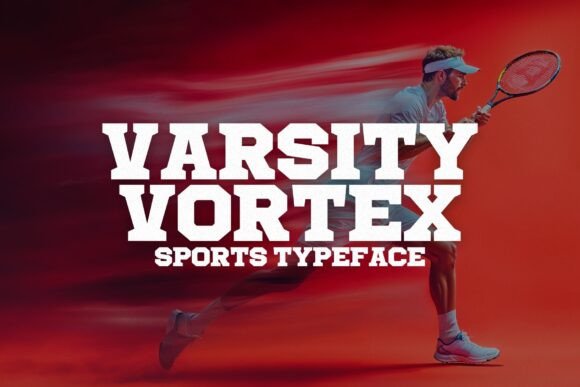
Varsity Vortex Font: Bold Slab Serif for Athletic Web Design
Testing Varsity Vortex in High-Impact Hero Sections
When I first loaded Varsity Vortex into my design software for a new fitness coaching landing page, I was immediately struck by how this specific slab serif commands attention without feeling outdated. Unleash the full force of athletic energy with Varsity Vortex, a bold and commanding sports typeface built for champions, and you will quickly see why it works so well above the fold. In my recent project for a boutique strength training studio, the client needed a digital presence that felt as intense and disciplined as their in-person sessions. Standard sans serif fonts felt too corporate, and traditional serifs lacked the necessary grit. Designed for impact, this powerhouse font exudes strength, determination, and an undeniable sense of motion that translated perfectly to the hero section.
I placed the headline "Train With Purpose" in Varsity Vortex against a dark, high-contrast background image. The thick, blocky serifs anchored the text, making it legible even over complex photography. As a web designer, readability is always my primary concern, but personality is what converts visitors into leads. This typeface bridges that gap effectively. It provided the visual weight necessary to stop the scroll, yet the letterforms were open enough to prevent the text from feeling muddy on smaller laptop screens. For any digital product creator building a campaign landing page or a sports brand homepage, testing this font in your primary header is the first step toward establishing a confident brand voice.
Varsity Vortex Typography for Fitness Brand Identity
Integrating Varsity Vortex into a comprehensive digital brand kit requires understanding its role as a specialized display tool within your broader typography system. When I developed the identity for an online athletic wear store, I used this font exclusively for category headers and promotional banners to maintain a cohesive athletic aesthetic. Because it is such a distinct slab serif, it pairs best when allowed to breathe. I found that using it for navigation menus or body copy created visual fatigue, but utilizing it for short, punchy phrases like "New Arrivals," "Sale Ends Soon," or "Join the Team" created a rhythmic visual hierarchy that guided users through the shopping experience.
The personality of this typeface aligns perfectly with brands that want to communicate resilience and performance. During the branding phase, I tested it alongside various color palettes. High-contrast combinations, such as white text on deep navy or neon accents on charcoal black, amplified the font’s inherent energy. Conversely, pastel backgrounds softened the aggressive edge, making it suitable for youth sports leagues or community fitness programs. For UI designers working on digital assets, remember that this font carries significant cultural baggage associated with varsity jackets and stadium signage. Lean into that nostalgia if it serves the brand, or subvert it with modern layout techniques to create something fresh. The key is consistency; once you establish Varsity Vortex as your primary display face, use it deliberately across social media graphics, email headers, and web banners to reinforce recognition.
Pairing Varsity Vortex with Clean Sans Serif Fonts
A successful web layout relies heavily on contrast, and pairing Varsity Vortex with a neutral sans serif font is essential for maintaining usability while showcasing its character. In my coaching website redesign, I coupled this bold slab serif with a geometric sans serif for all body text, captions, and interface elements. The stark difference between the decorative, heavy strokes of Varsity Vortex and the clean, uniform lines of the supporting typeface created a professional balance. This combination ensured that while the headlines screamed "athlete," the content remained accessible and easy to scan.
I also experimented with pairing it alongside a monospaced font for data-heavy sections like workout stats or pricing tables. The technical feel of the monospace complemented the structured nature of the slab serif, reinforcing a theme of precision and metrics. Avoid pairing Varsity Vortex with other display fonts or ornate scripts, as they will compete for attention and clutter the visual field. Instead, let the slab serif be the singular star of your typographic hierarchy. When selecting your secondary font, look for x-heights that harmonize with Varsity Vortex to ensure alignment feels natural in responsive grids. This thoughtful approach to font pairing transforms a simple typeface choice into a sophisticated design system that supports both aesthetics and user experience.
Optimizing Varsity Vortex Readability on Mobile Devices
Responsive design presents unique challenges for bold display fonts, and testing Varsity Vortex on mobile viewports revealed important adjustments needed for optimal legibility. On desktop, the intricate details of the slab serifs render beautifully, but on a smartphone screen, those same details can blur or disappear if the font size is too small. During my mobile optimization phase for a course sales page, I increased the base size of Varsity Vortex headings by 20% compared to my desktop specs. I also adjusted the line height slightly to prevent letters from stacking too tightly, which can happen with bold weights on narrow screens.
Another critical consideration is touch target sizing when using this font for call-to-action buttons. While Varsity Vortex looks fantastic in button text due to its assertive nature, the thick strokes reduce the negative space inside the letterforms. To compensate, I added extra horizontal padding to buttons to ensure the text didn't feel cramped and the clickable area met accessibility standards. I also avoided using all-caps settings for longer mobile headlines, as the uniform height of uppercase slab serifs can create a solid block of ink that is difficult to parse quickly. Mixing case or using title case improved scanning speed significantly. For digital product creators, always preview your mobile layouts on actual devices rather than relying solely on browser resizing tools to catch these subtle rendering issues.
Understanding the licensing terms is equally vital for protecting your work and your client's business. Some licenses cover unlimited web views, while others are tiered based on traffic. For a growing online store, I recommended a license that accommodated future scaling to avoid compliance headaches down the road. Additionally, I explored the included alternates and ligatures. Varsity Vortex often includes stylistic sets that offer slightly different letterform variations, allowing for custom logo treatments or unique drop caps without leaving the font family. Checking these details during the initial setup phase prevents mid-project surprises and ensures that the final deliverable is both legally sound and technically robust. Whether you are designing a portfolio site or a major campaign, treating font selection as a strategic asset management task elevates the professionalism of your entire web design process.